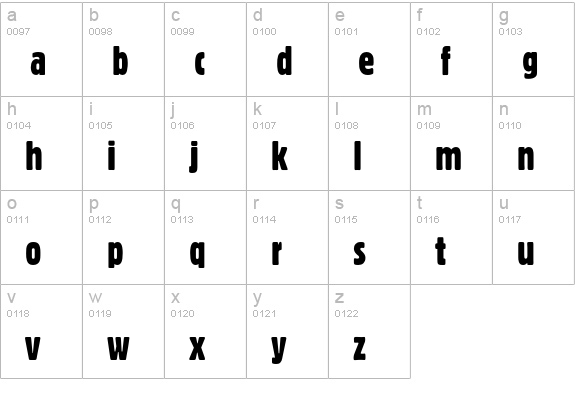
PT Bloc Extra Condensed Cyrillic is a distinctive, condensed-width variant in the PT typeface family \xE2\x80\x94 well suited to design and typography projects.
PT Bloc Extra Condensed Cyrillic is a sleek and modern typeface that exudes a sense of strength and sophistication. With its condensed letterforms and sharp edges, this font is perfect for creating bold headlines and eye-catching designs. The Cyrillic characters add a touch of elegance and versatility, making it suitable for various projects in both print and digital media. What makes PT Bloc Extra Condensed Cyrillic even more appealing is that it is available for free download at FontsMarket.com. This means that you can easily access this stylish font and use it in your personal or commercial projects without any cost. Don't miss out on the opportunity to enhance your designs with the unique flair of PT Bloc Extra Condensed Cyrillic – grab your free copy today!